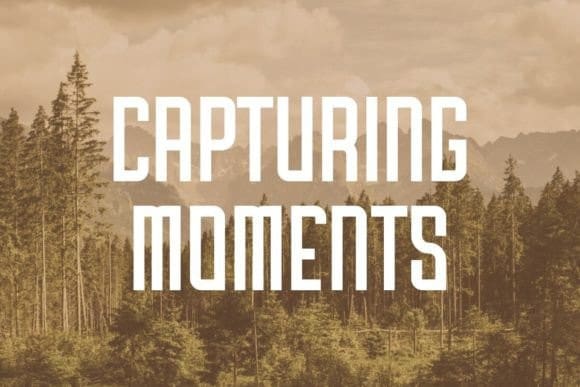
Sublimation Condensed Font
Sublimation Condensed Font is a condensed vintage, clean and bold sans serif font that merges modern aesthetics with classic vintage charm. This font is perfect for adding a touch of timeless elegance to a variety of design projects, including quotes, posters, backgrounds, t-shirts, mugs, tote bags, pillows, and various other souvenirs.